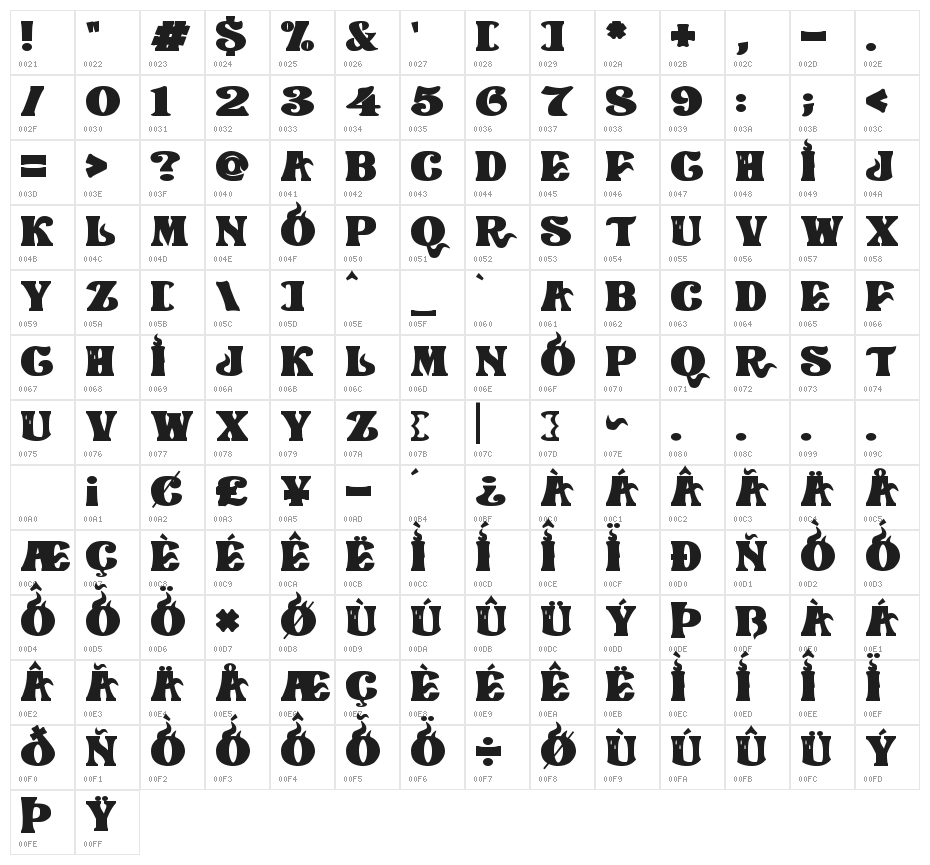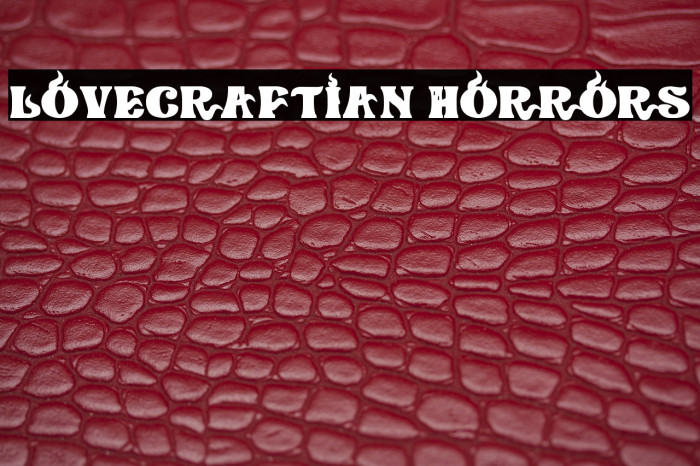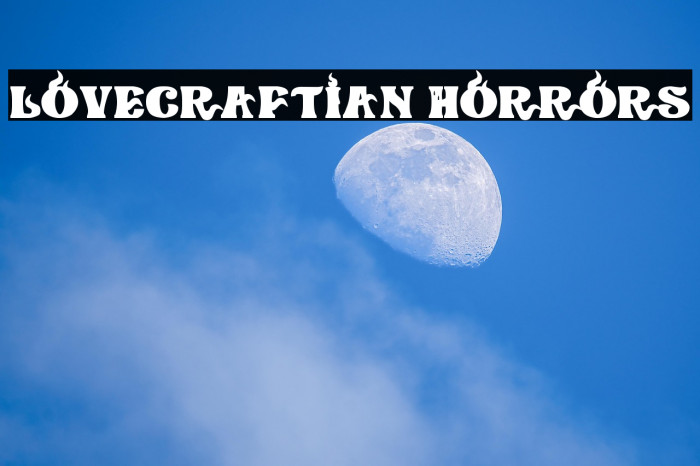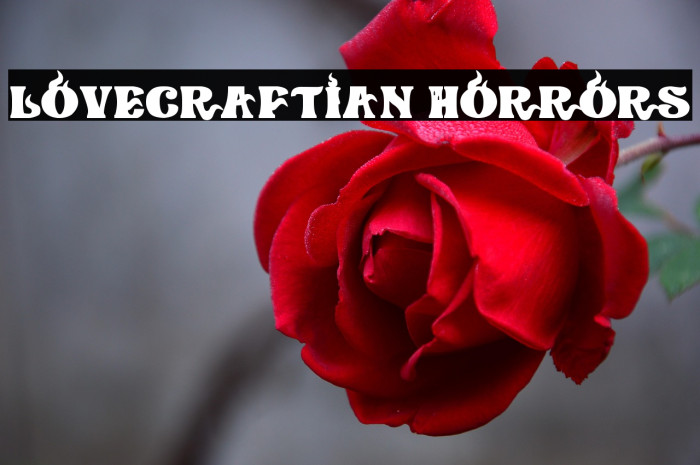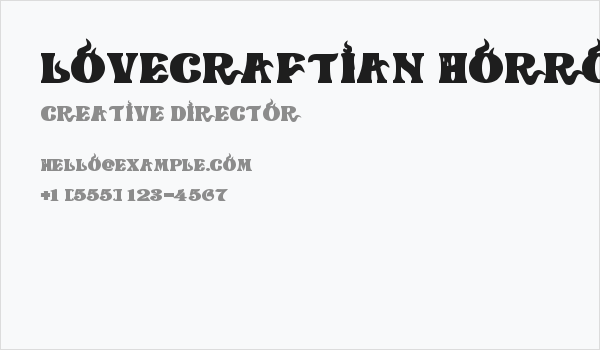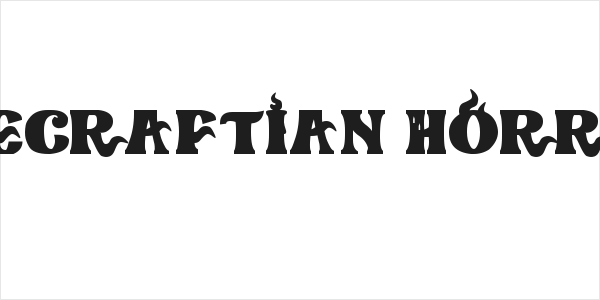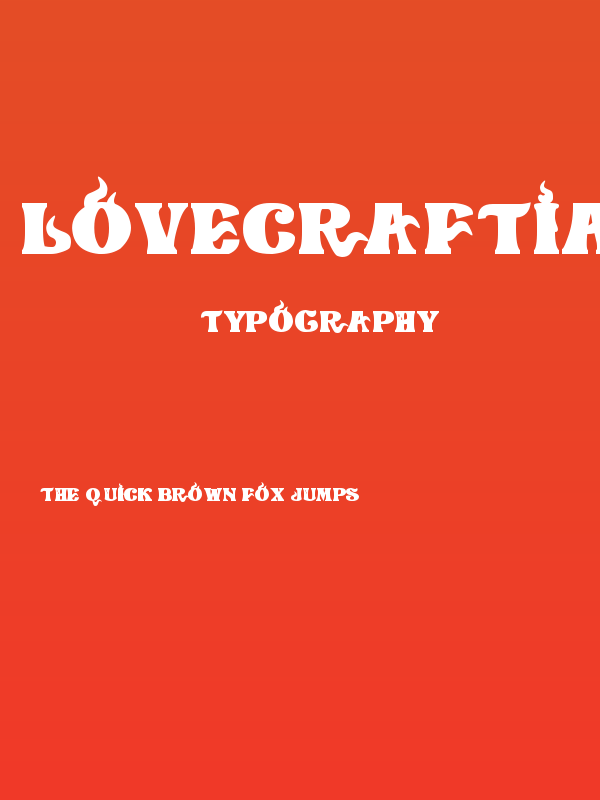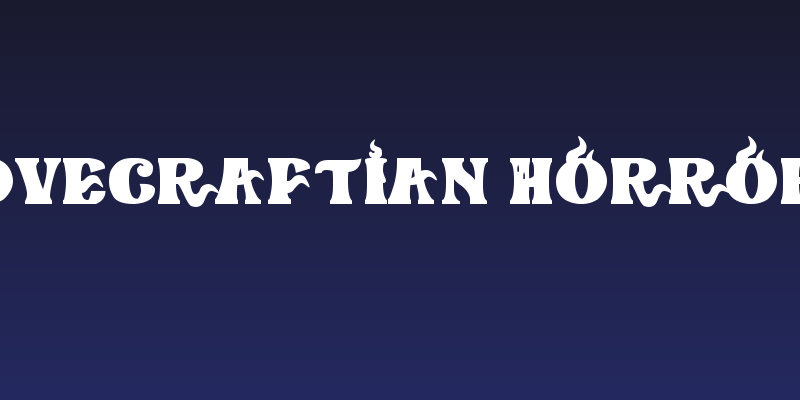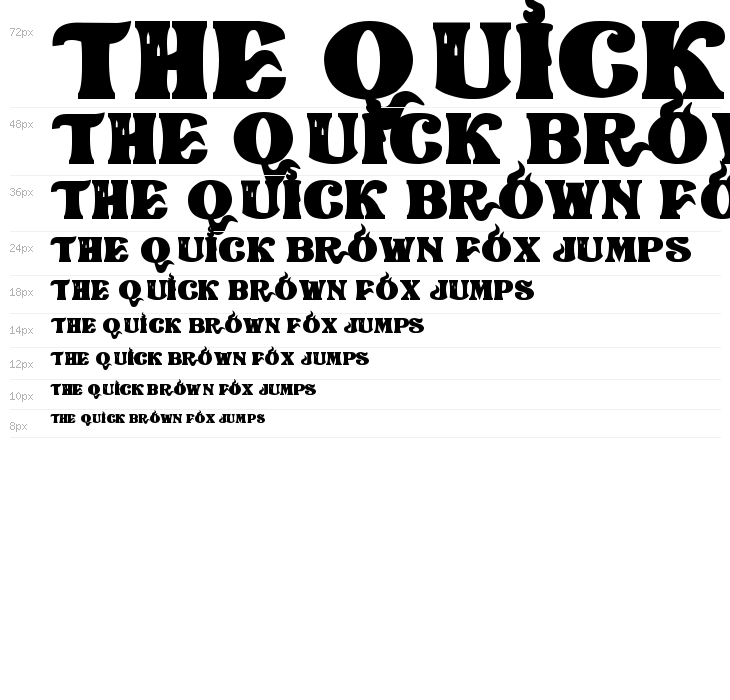
Lovecraftian Horrors Font
Lovecraftian Horrors Description
This font features a bold and dramatic style with a distinct horror-inspired aesthetic. The characters are heavily stylized with sharp, pointed serifs and unique embellishments that evoke a sense of mystery and the supernatural. The uppercase and lowercase letters maintain a consistent design, with exaggerated curves and flourishes that add to the eerie atmosphere. The numbers and special characters follow the same thematic elements, ensuring a cohesive look across all glyphs. This font is perfect for creating a chilling and immersive experience in any design project.
| Proposed Projects | Ideal for horror movie posters, Halloween event invitations, themed book covers, and escape room branding. |